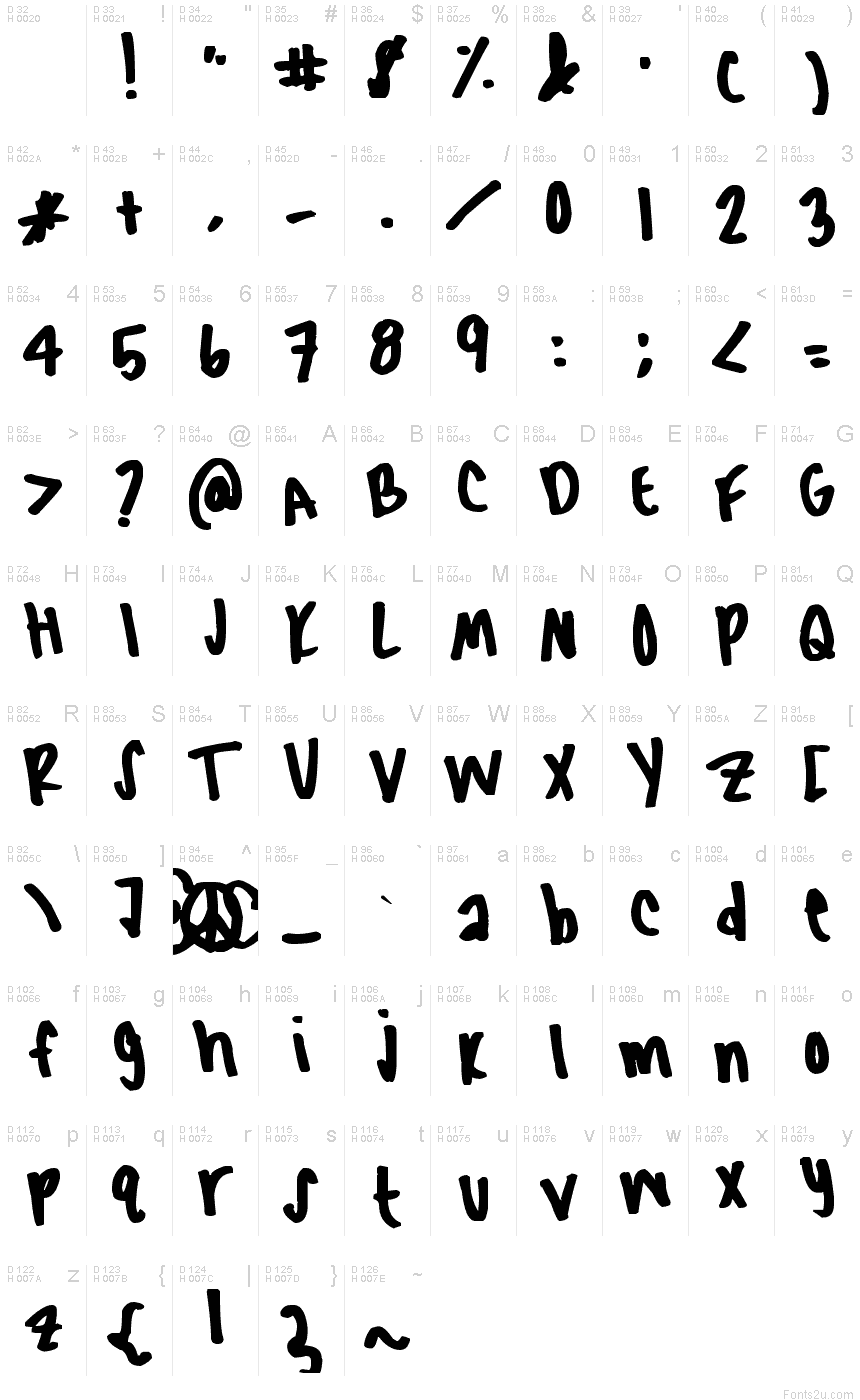
Blackjack
Black Jack font is a free handwritten font and bold marker typeface that looks like it was scrawled with a fat, inky pen on glossy paper. The letters are chunky, slightly wobbly, and tightly packed, giving every word a loud, energetic presence without feeling messy. Rounded bends and thick strokes add a playful, almost graffiti-like character that jumps out even at smaller sizes.
Using Black Jack, you can give headlines and short phrases a hand-made punch on posters, party invitations, kids’ book covers, stickers, social posts, and YouTube thumbnails. This free font shines when you keep it for the loudest voice on the page and pair it with a clean, light sans-serif for supporting text, letting its inky texture and casual rhythm do the shouting.